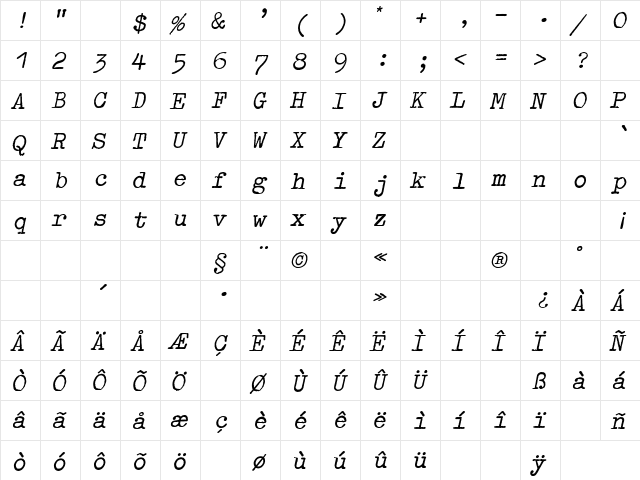
OldTypewriterBolObl Regular
Design Context for OldTypewriterBolObl Typeface
OldTypewriterBolObl uses fixed-width spacing throughout, giving it the structured, systematic character associated with coding environments and technical documentation.
Well-suited to data-driven dashboards, coding tutorials, and any design that wants to reference the world of programming.
Pro Tip: Use OldTypewriterBolObl with slightly increased line-height for extended reading — fixed-width spacing can feel dense in longer passages without extra breathing room.